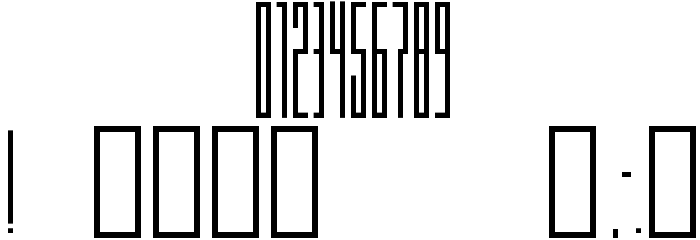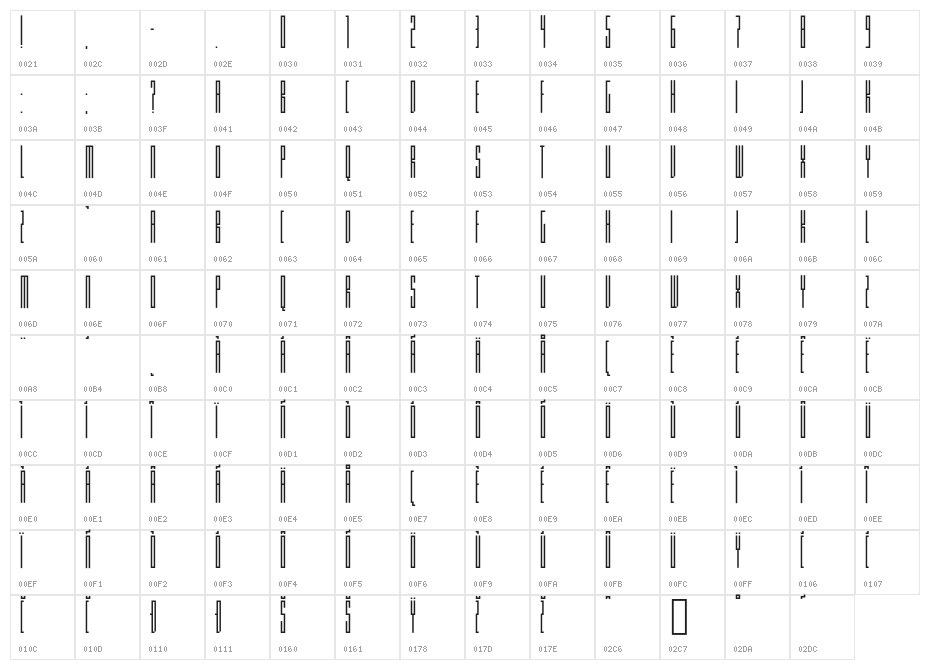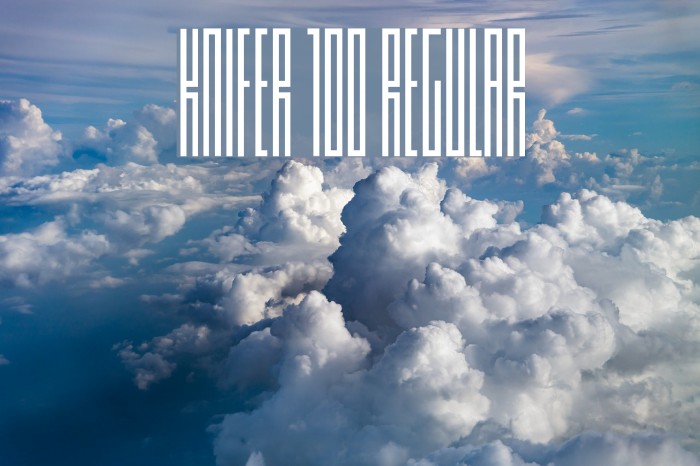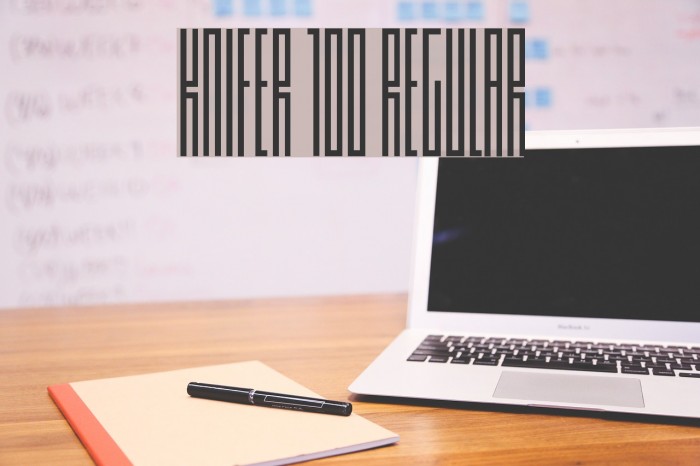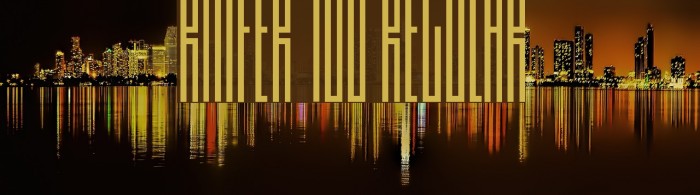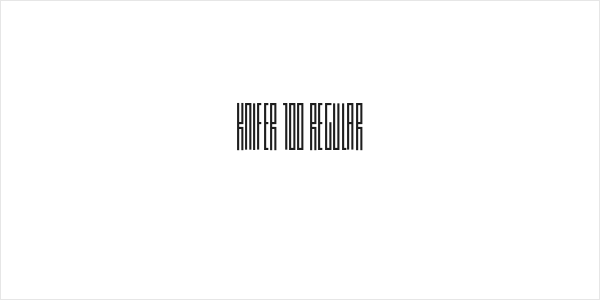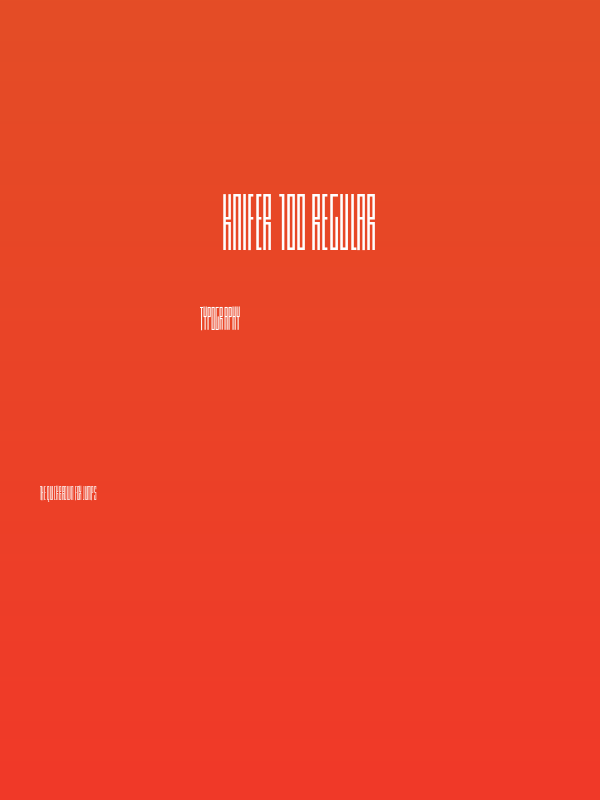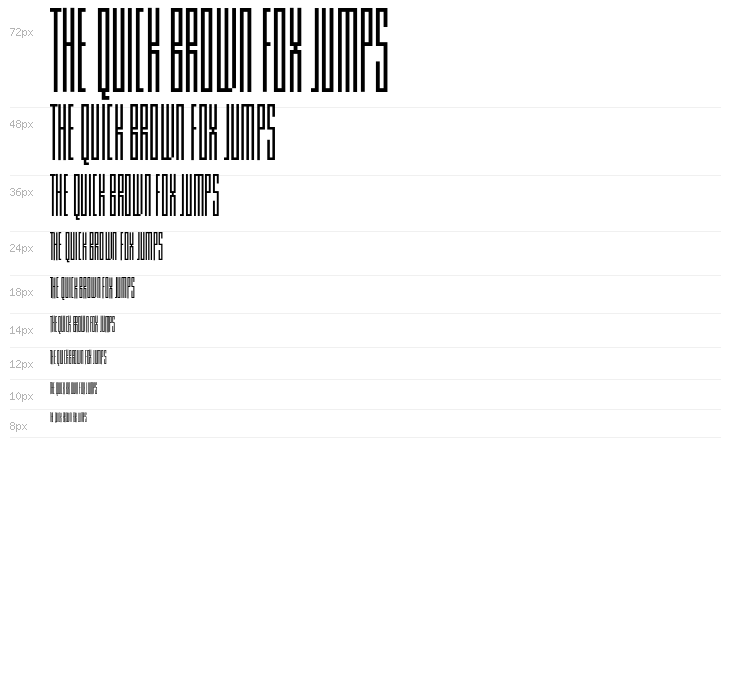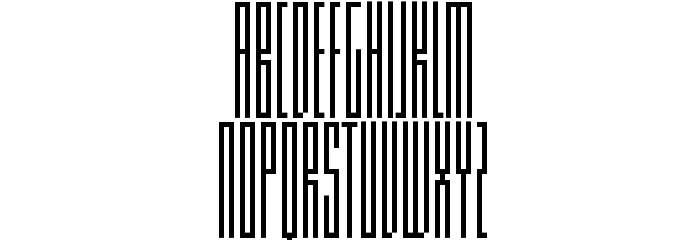
Knifer 100 Regular Font
Knifer 100 Regular Description
This font features an ultra-condensed and tall design, characterized by its narrow and elongated letterforms. The vertical emphasis is pronounced, giving it a distinct and striking appearance. The characters are uniformly aligned, maintaining a consistent height across both uppercase and lowercase letters. The geometric structure of the font is evident, with sharp angles and clean lines that contribute to its modern aesthetic. The spacing between characters is tight, enhancing the compact look. This font's unique style makes it suitable for attention-grabbing headlines and artistic designs where a bold statement is desired.
| Proposed Projects | Ideal for modern posters, avant-garde branding, and artistic headlines. |